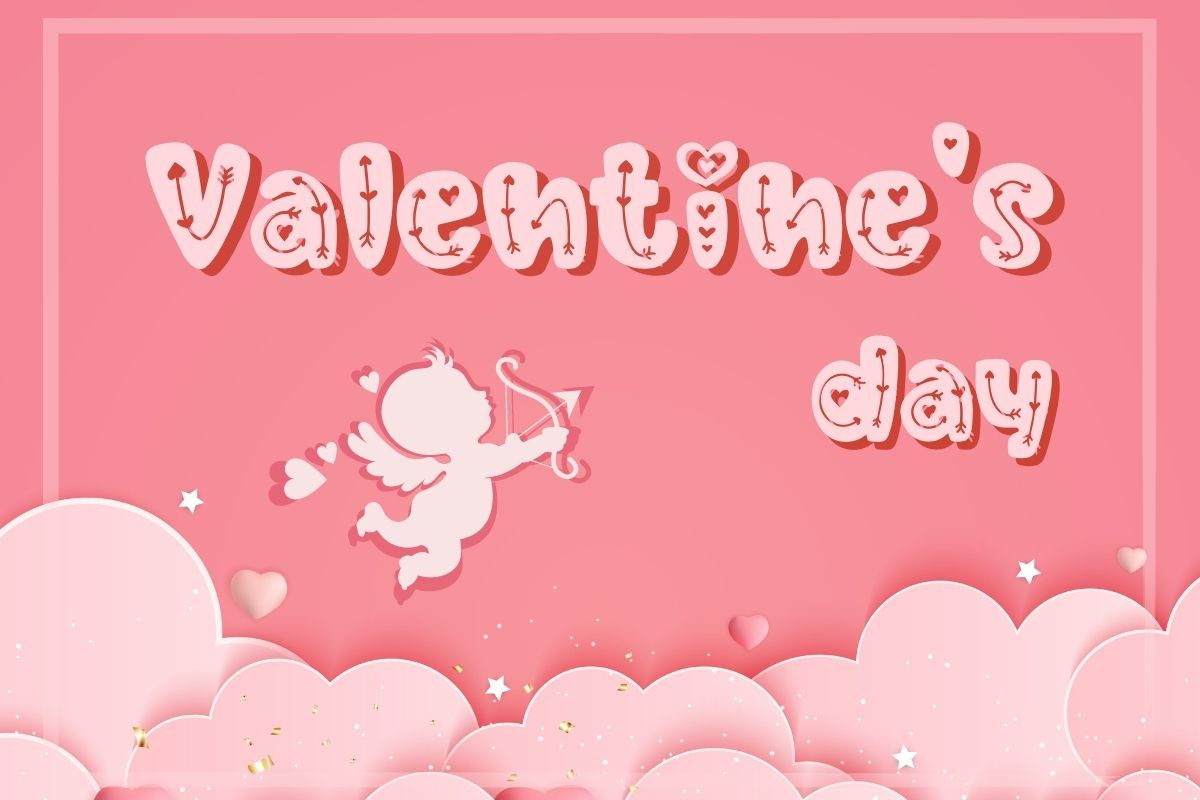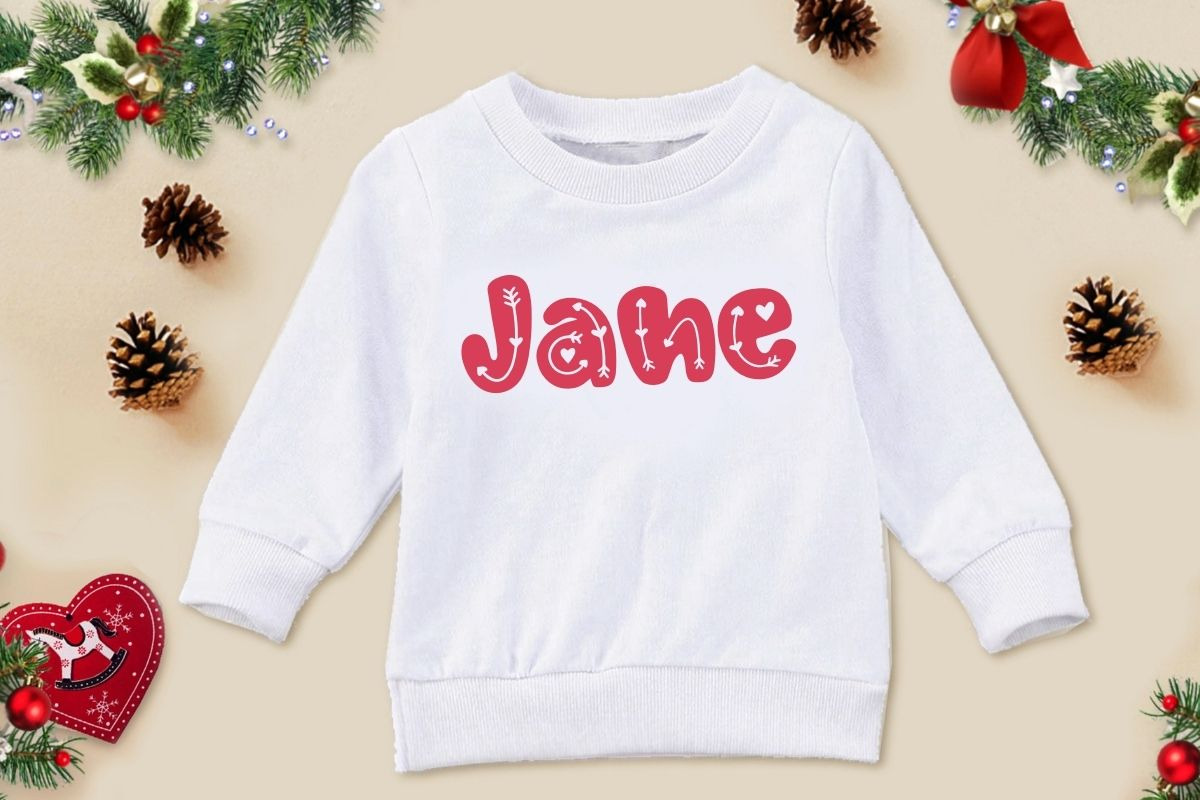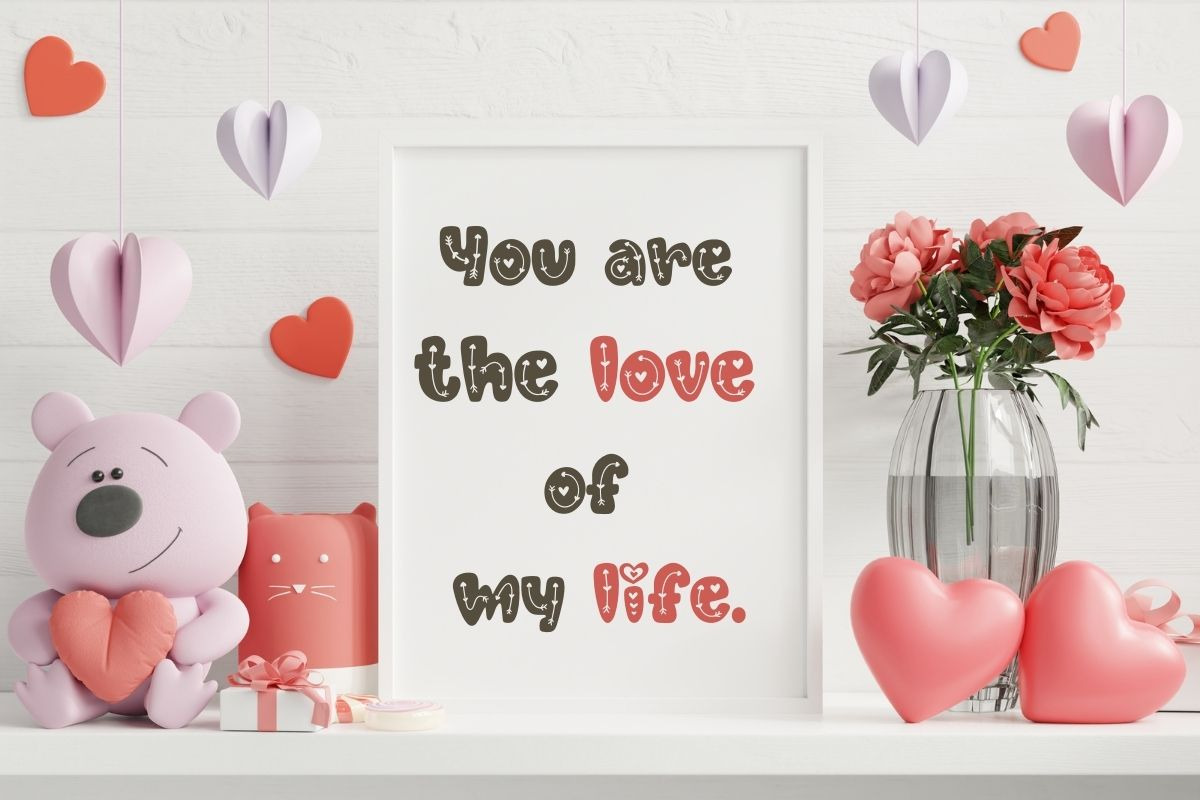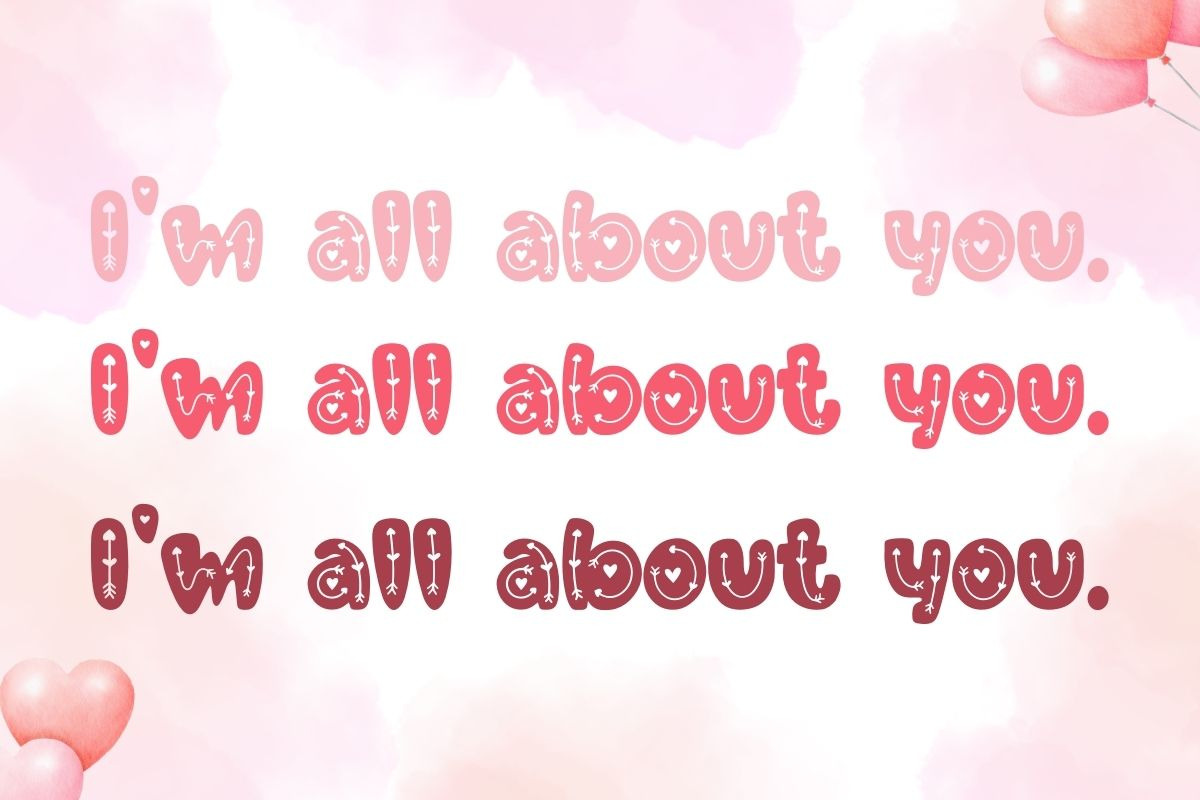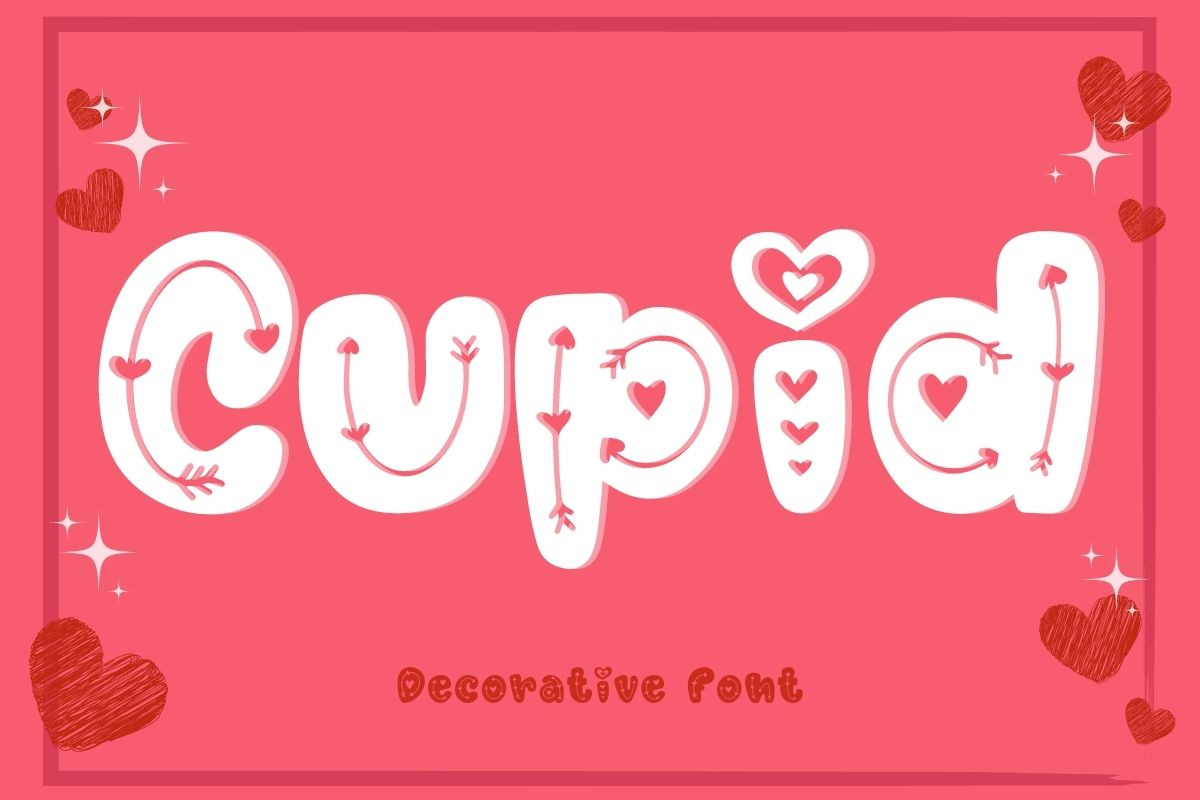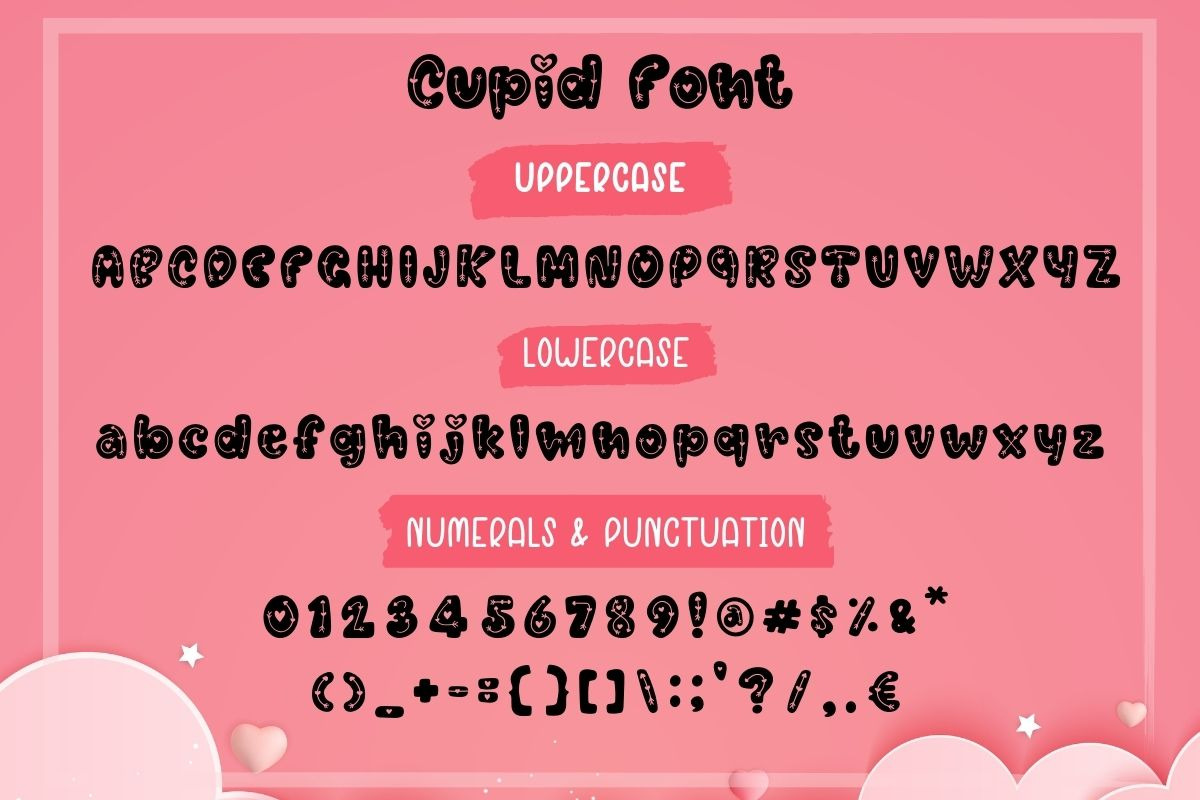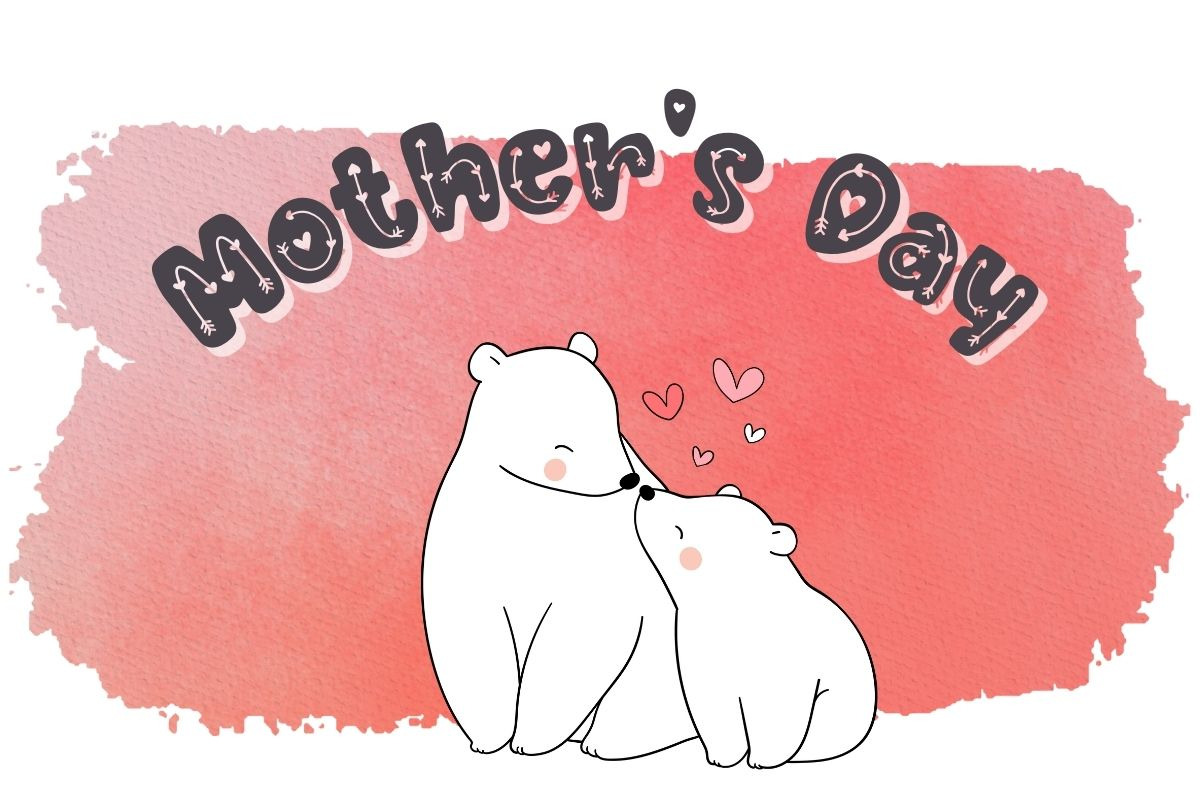
Cupid - Decorative Font
Cupid Font is a cute decorative font. This font uses bold letters to draw cupid arrows along the curvature of the letters. It will help you enjoy and have fun with your designs. You can use it to design various products in Valentine's themes such as banners, content, mugs, cards, shirts, stationery, social media posts, and more!